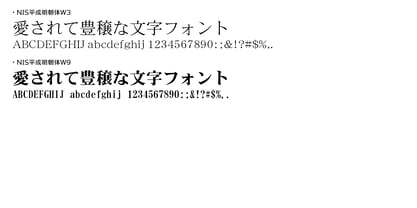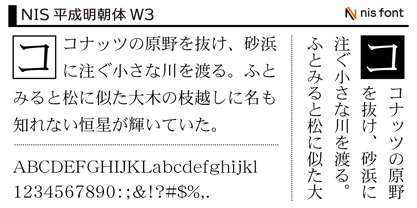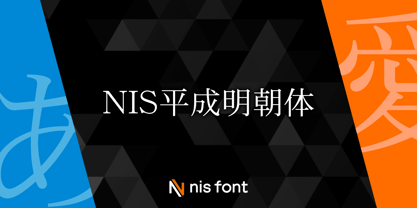
OT-NIS_HEM
The OT-NIS_HEM Font Family was designed by and published by NIS Fonts. OT-NIS_HEM contains 2 styles and family package options. More about this family
This Ming typeface was developed for creating JIS standard documents and features a formal and reliable design. Additionally, the proportional values for the single-byte Latin characters in this typeface use their original values. Note: This typeface supports the JIS2004 character set.